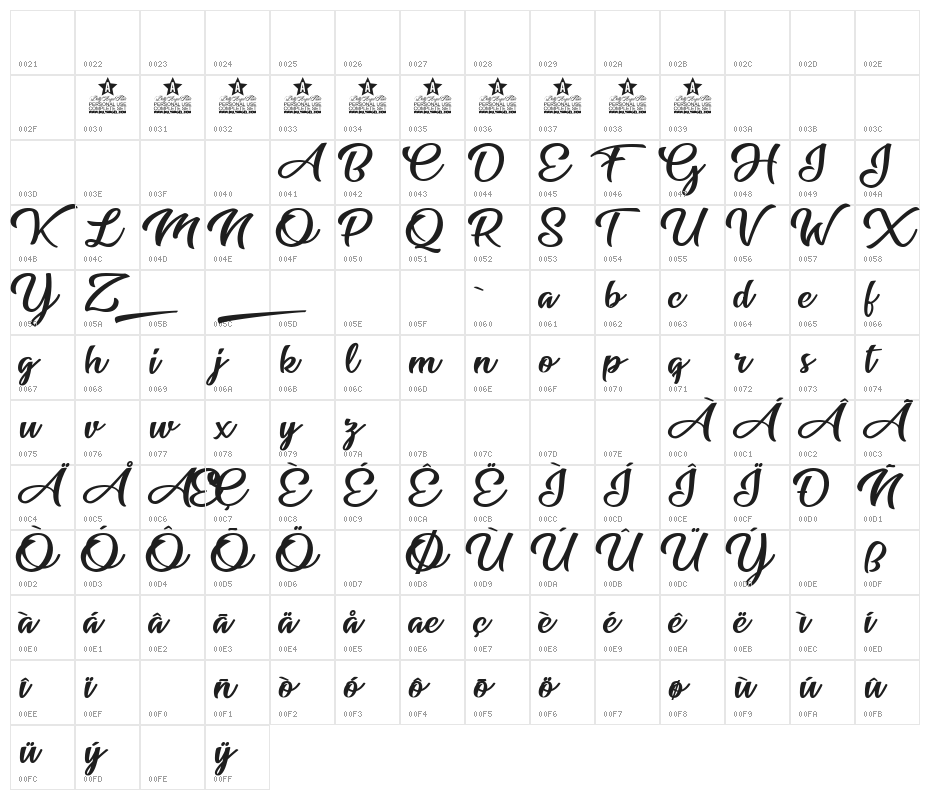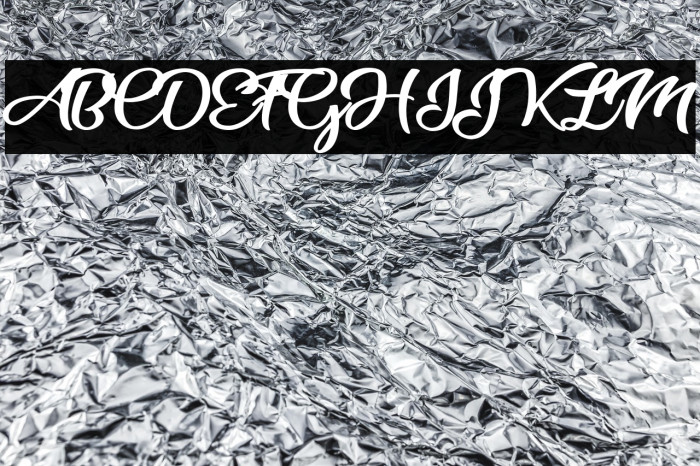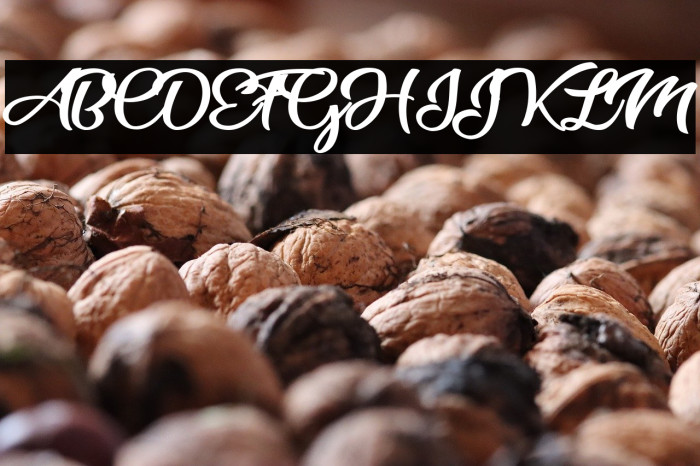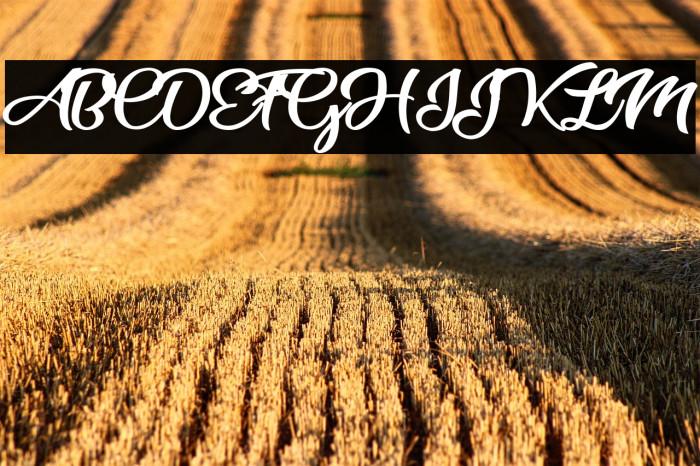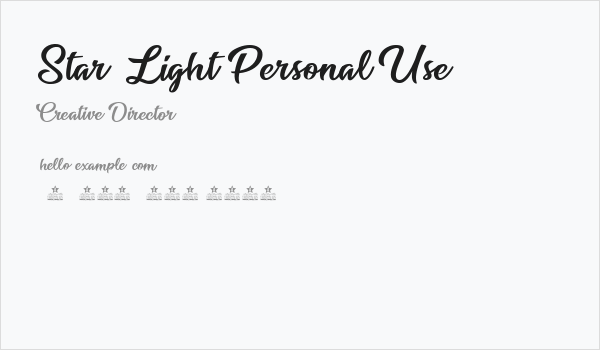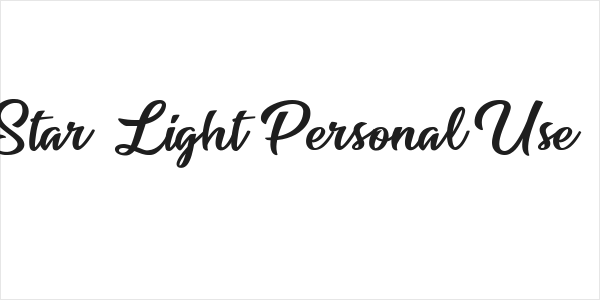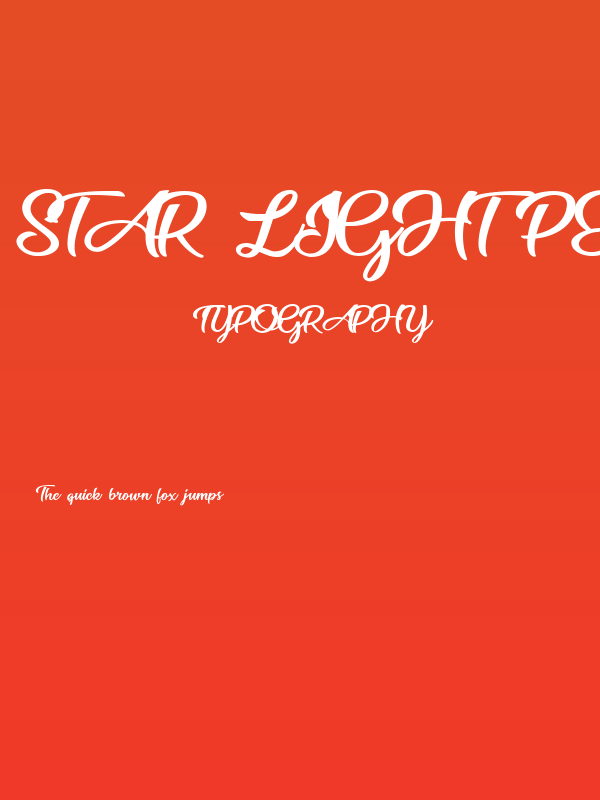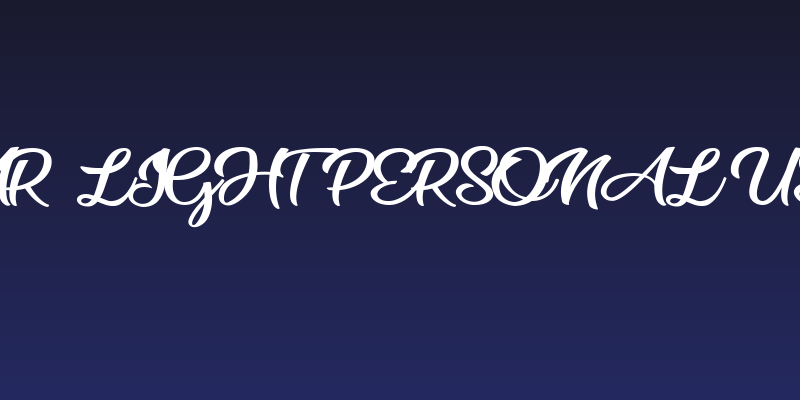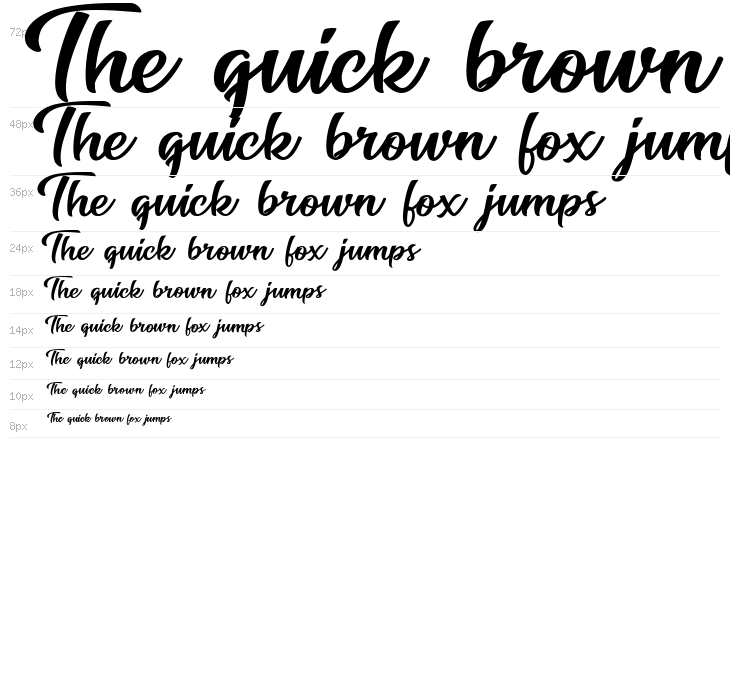
Star Light Personal Use Font
Star Light Personal Use Description
This font features an elegant and flowing script style, characterized by its smooth, cursive strokes and a sense of fluidity. The uppercase letters are ornate with intricate loops and swirls, while the lowercase letters maintain a consistent, connected flow. The font exudes a sense of sophistication and grace, making it ideal for projects that require a touch of elegance. The numerals and special characters are designed to complement the overall script style, ensuring a cohesive look across all text elements.
| Overall Style | Elegant, Decorative |
| Use Case | Logos, Invitations, Decorative Text |
| Proposed Projects | Ideal for wedding invitations, elegant branding, greeting cards, and decorative signage. |